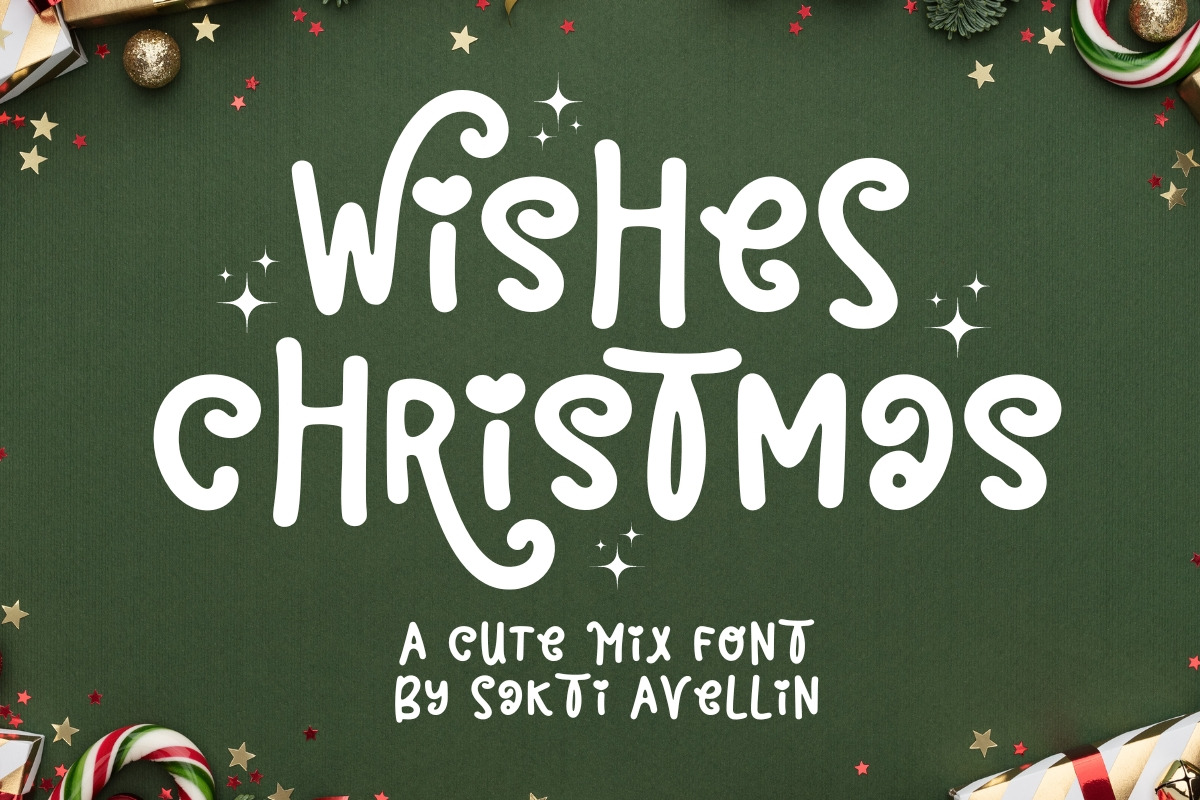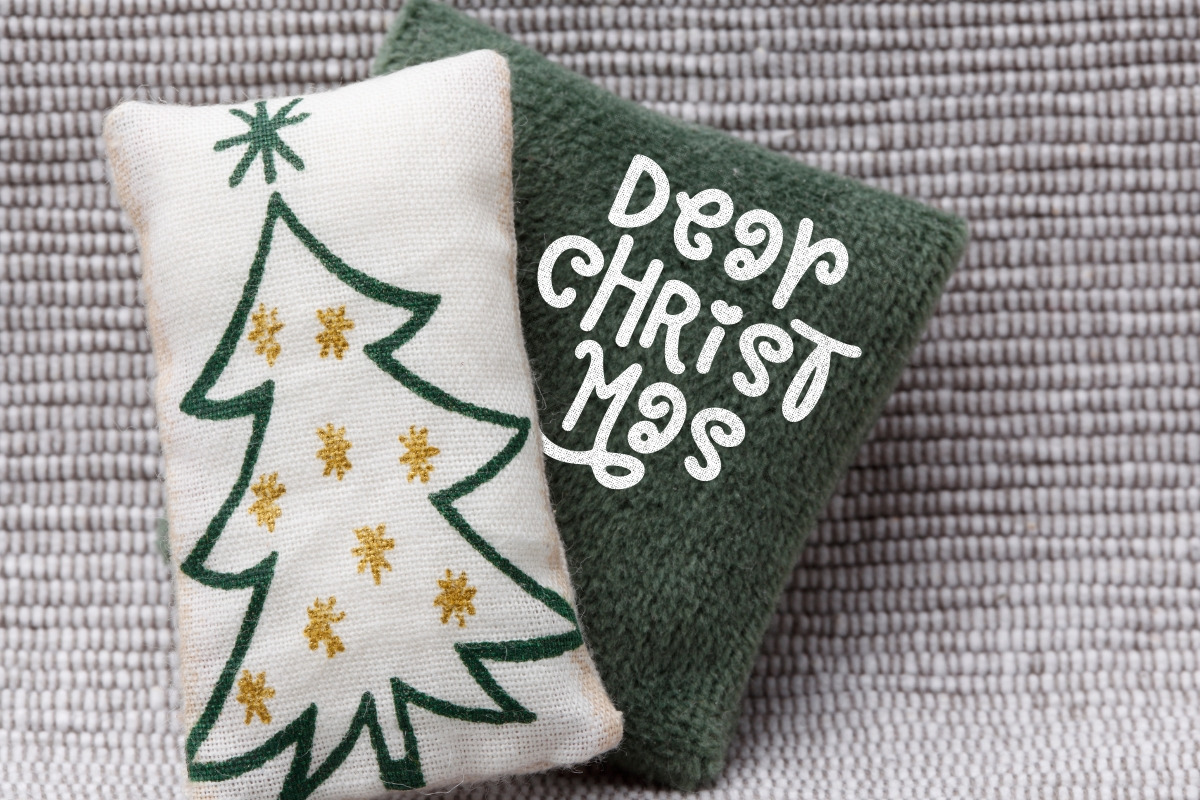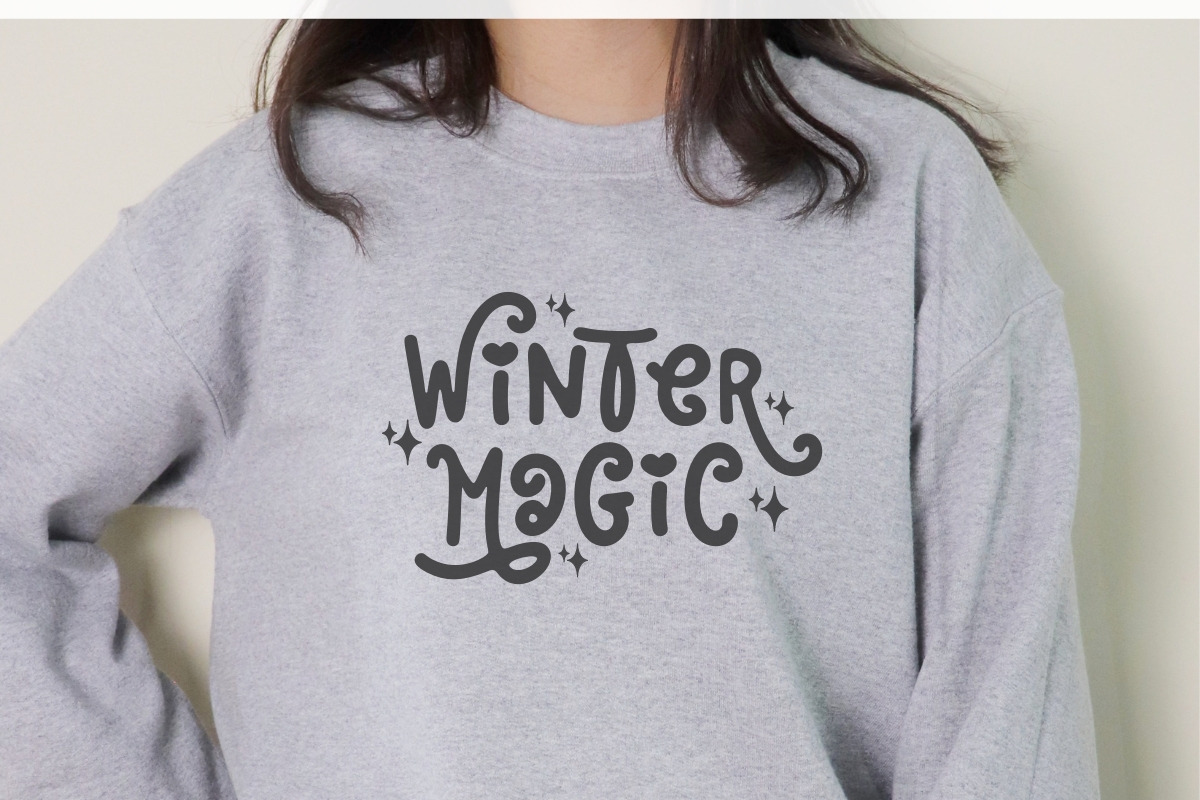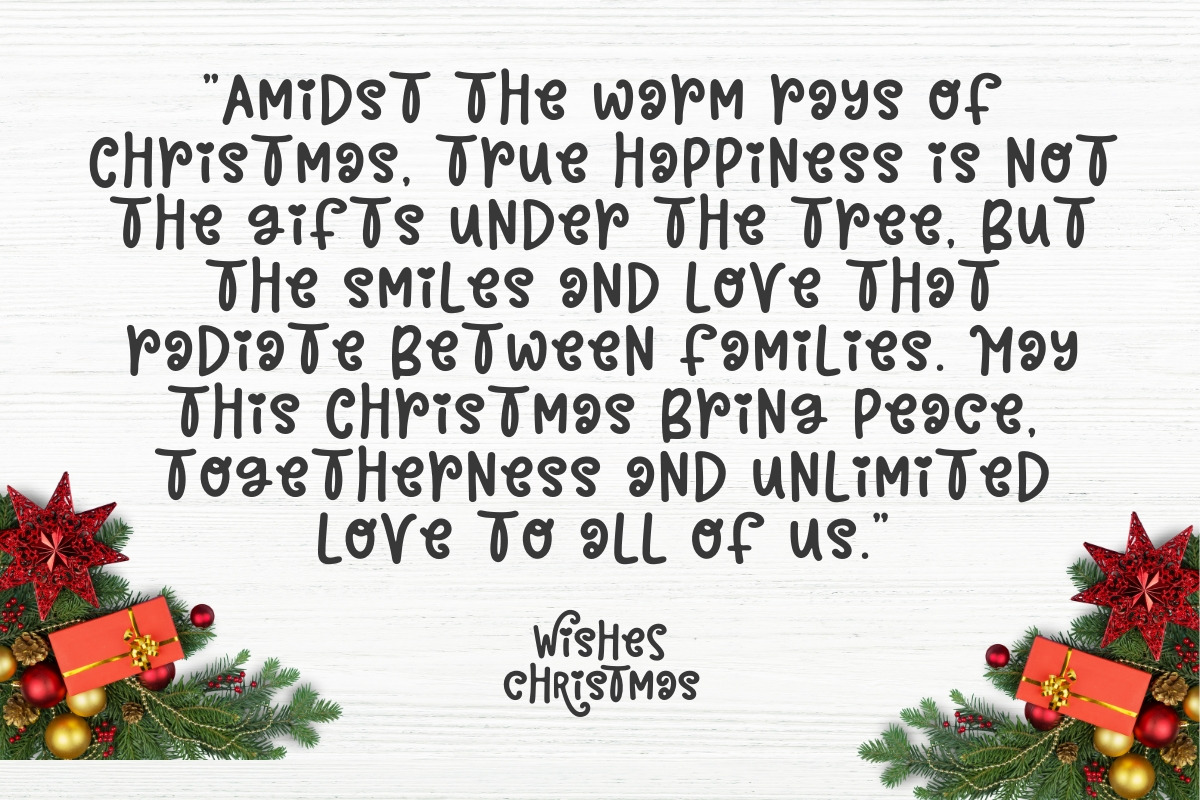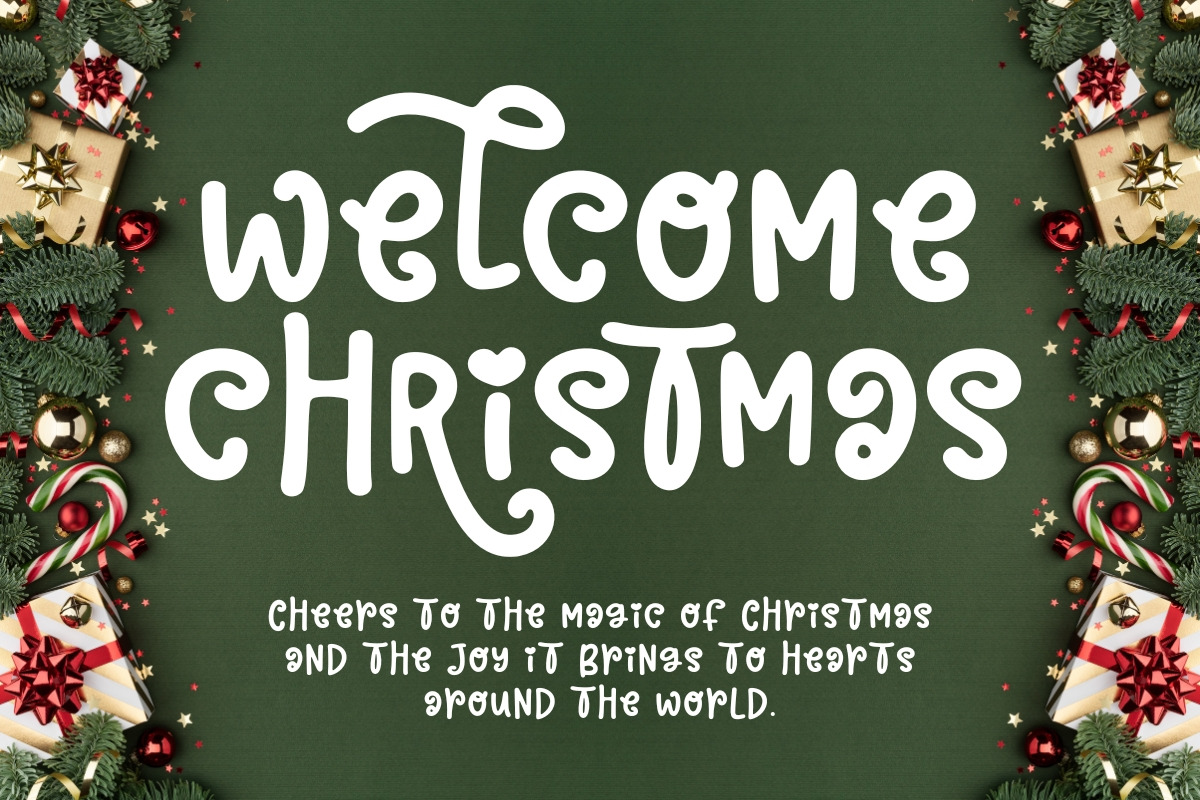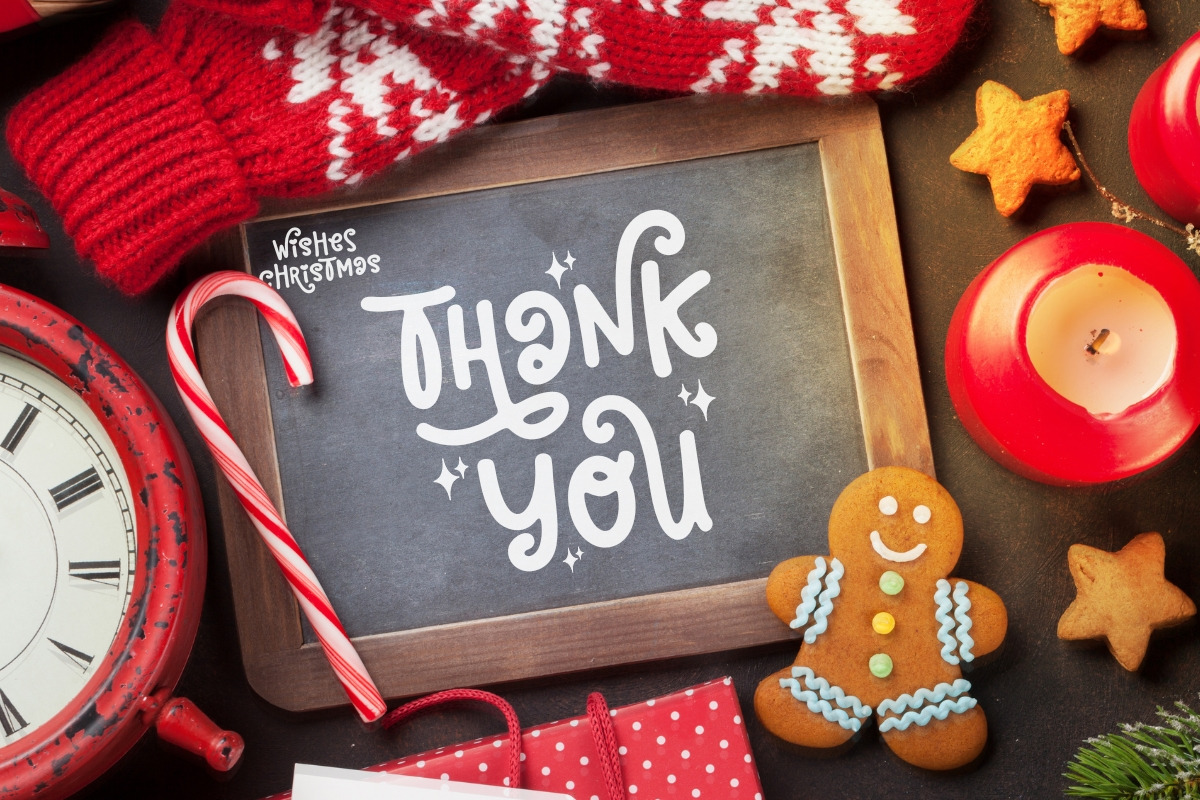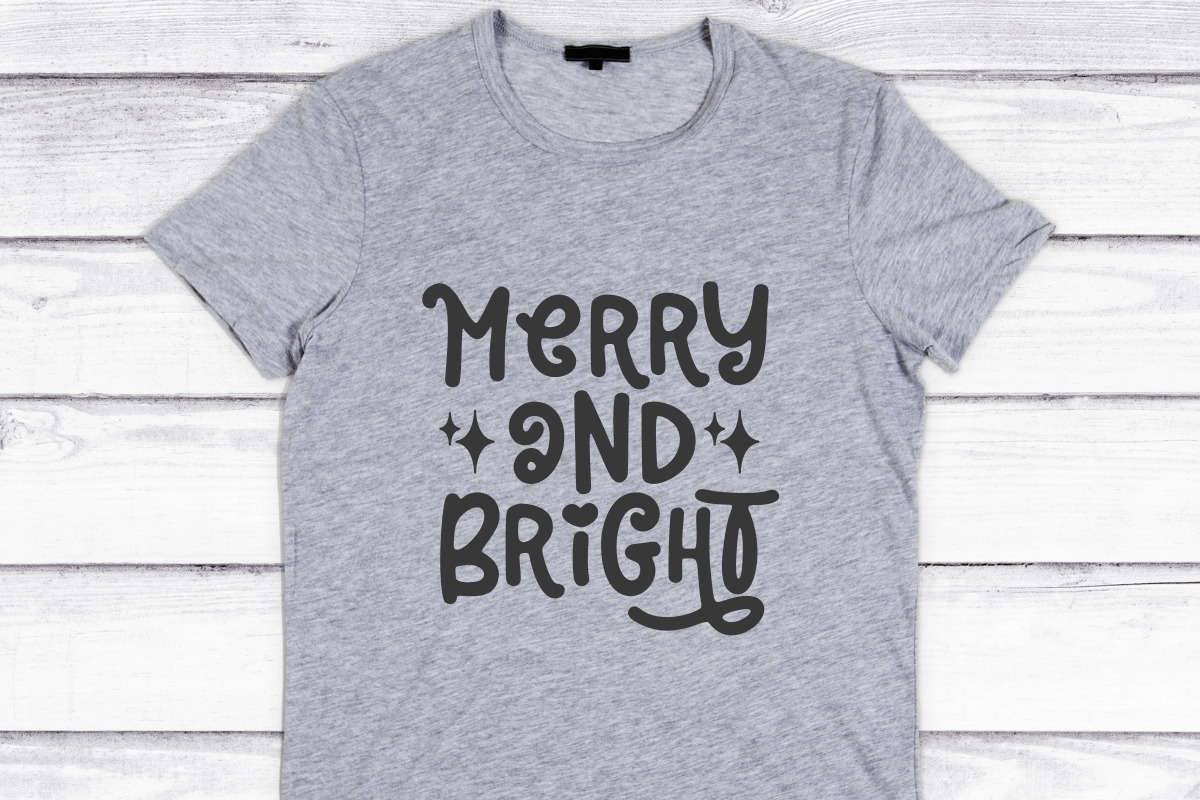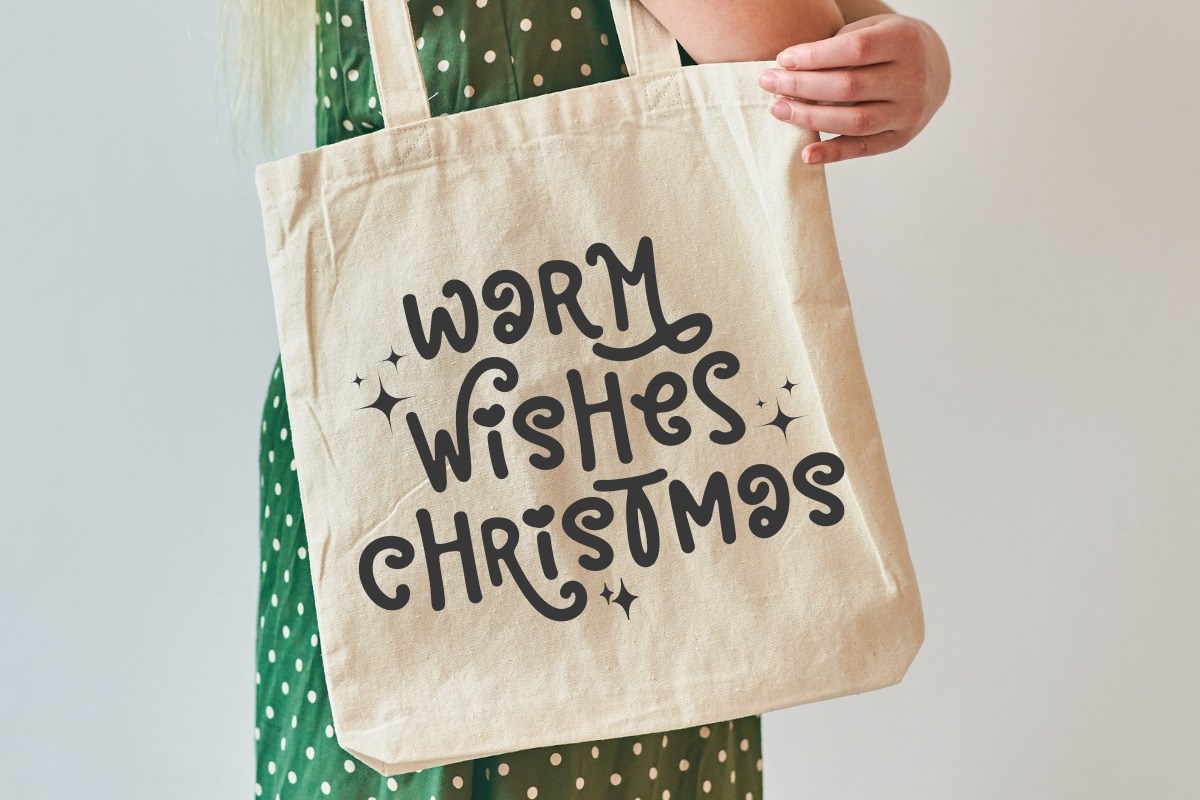
Wishes Christmas - Cute Mix Font
Wishes Christmas is a charming and cute mix font designed to capture the sweet and whimsical spirit of the holidays. This playful display font features a delightful blend of rounded letterforms and heartwarming details like built-in heart accents, making it an ideal choice for Christmas branding, festive greeting cards, seasonal gift tags, and merry social media graphics. Its friendly, hand-drawn aesthetic and bubbly silhouette ensure your headlines stand out with a cozy, handcrafted touch. Spread the love this season with the magical and creative energy of Wishes Christmas!